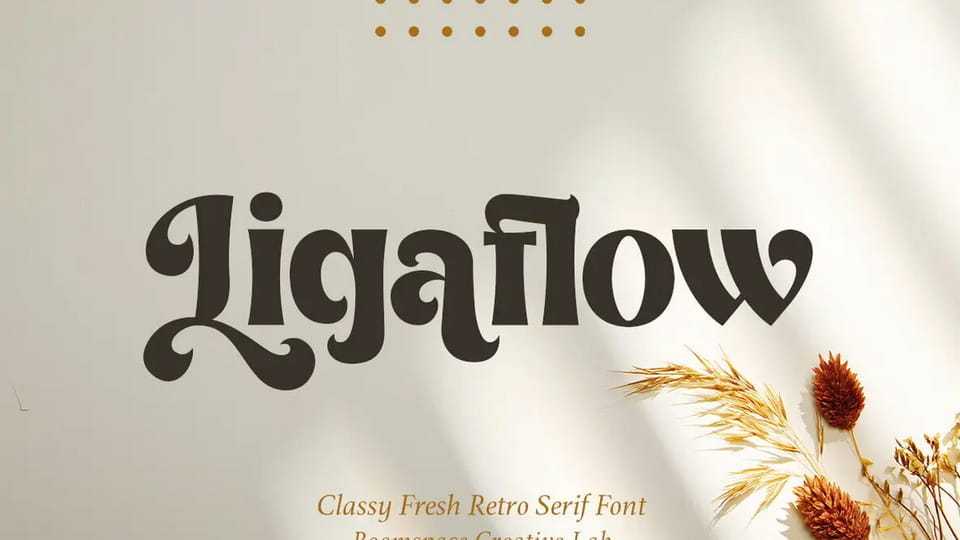
Download Ligaflow font, a symbol of elegance in typography, seamlessly blending classic sophistication with captivating uniqueness. This serif display font embodies a modern retro style.